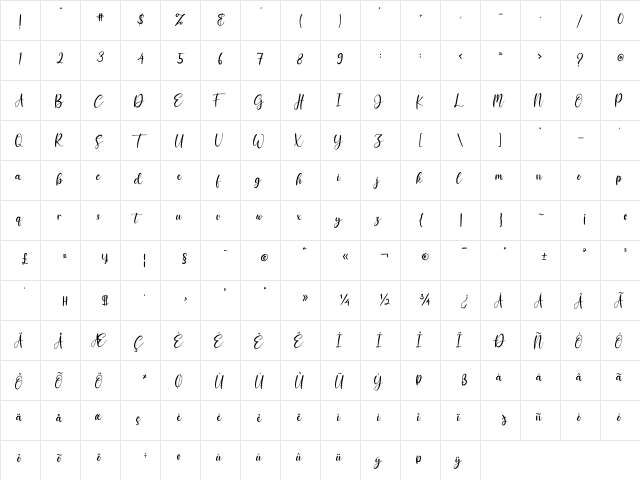
Ellanor Regular
Design Context for Ellanor Typeface
Ellanor is a composed and adaptable typeface that performs quietly and consistently across a wide range of design contexts.